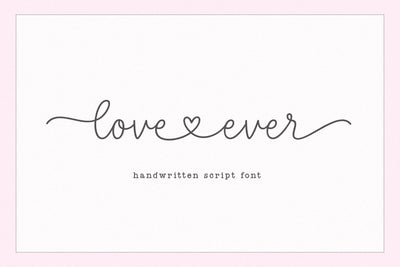
Love Ever - Heart Swash Script Font
Love Ever is a handwritten script font with heart swash connectors.
- Includes ending heart swashes and beginning/ending swashes for all lowercase letters.